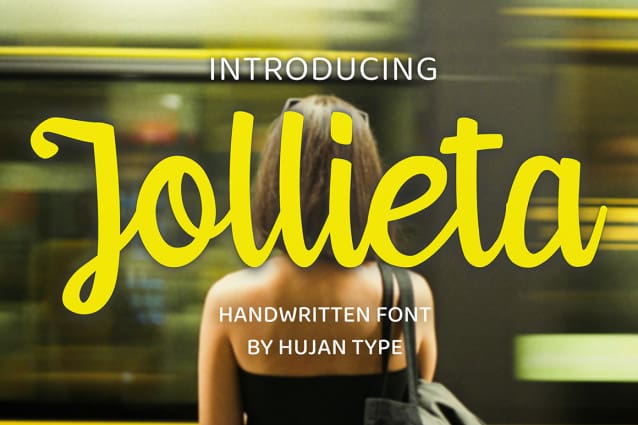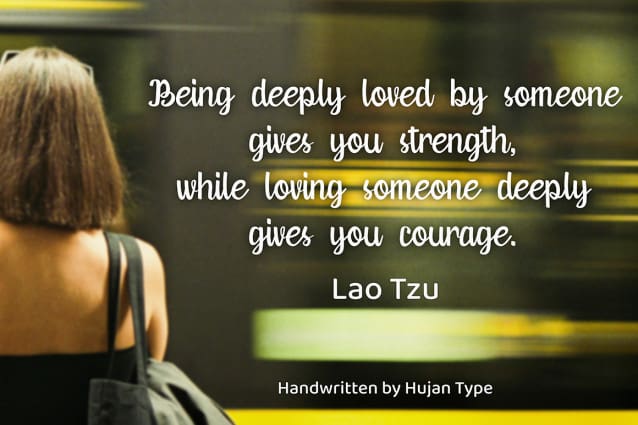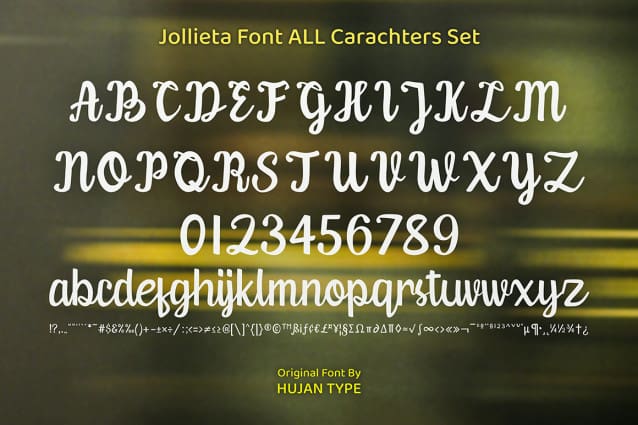
Jollieta Script Font
Jollieta Script Font are perfect for wall displays, wedding invitations, social media post logos, advertisements, product packaging, product designs, labels, photography, watermarks, invitations, stationery, and any project that requires handwritten taste.